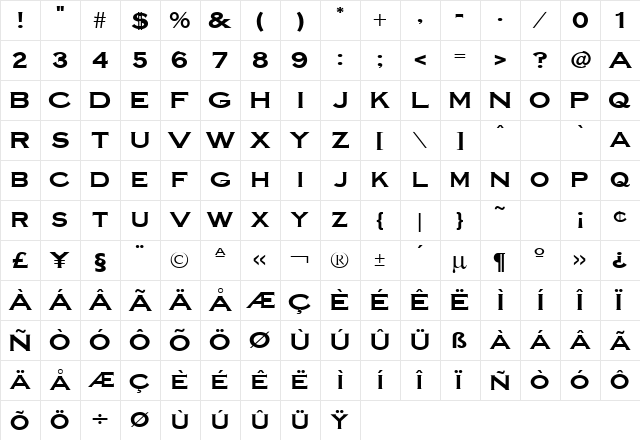
Workshop normal
Workshop offers clean, dependable letterforms without strong stylistic allegiance, making it a practical choice for designers who need flexibility.